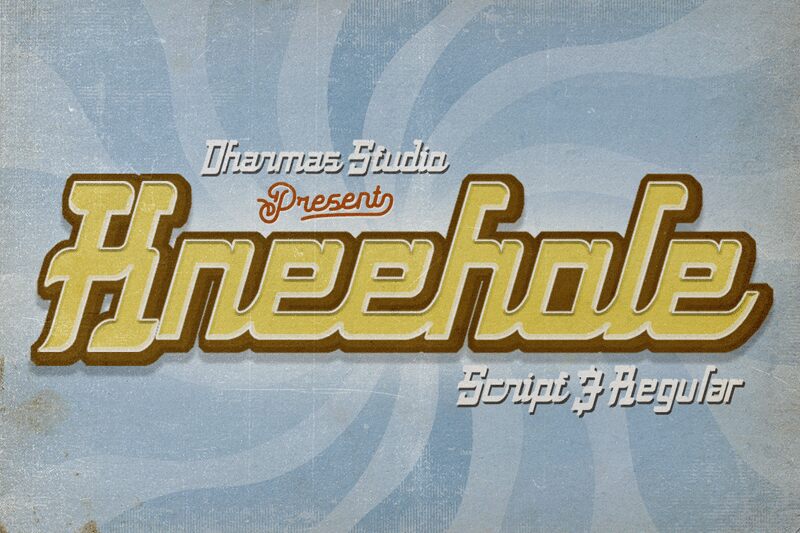
Kneehole font is a unique kind of condensed display font from Dharmas Studio. This typeface has a strong and unique character, suitable for making your project more impressive. Designed with strong dynamics and beautiful contrast.
Great for use in various projects like crafting logos, creating eye-catching headlines, branding names, printed on book covers or magazines to add exclusivity to publications. This font could also be used in festivals or events where distinct design ideas are presented.